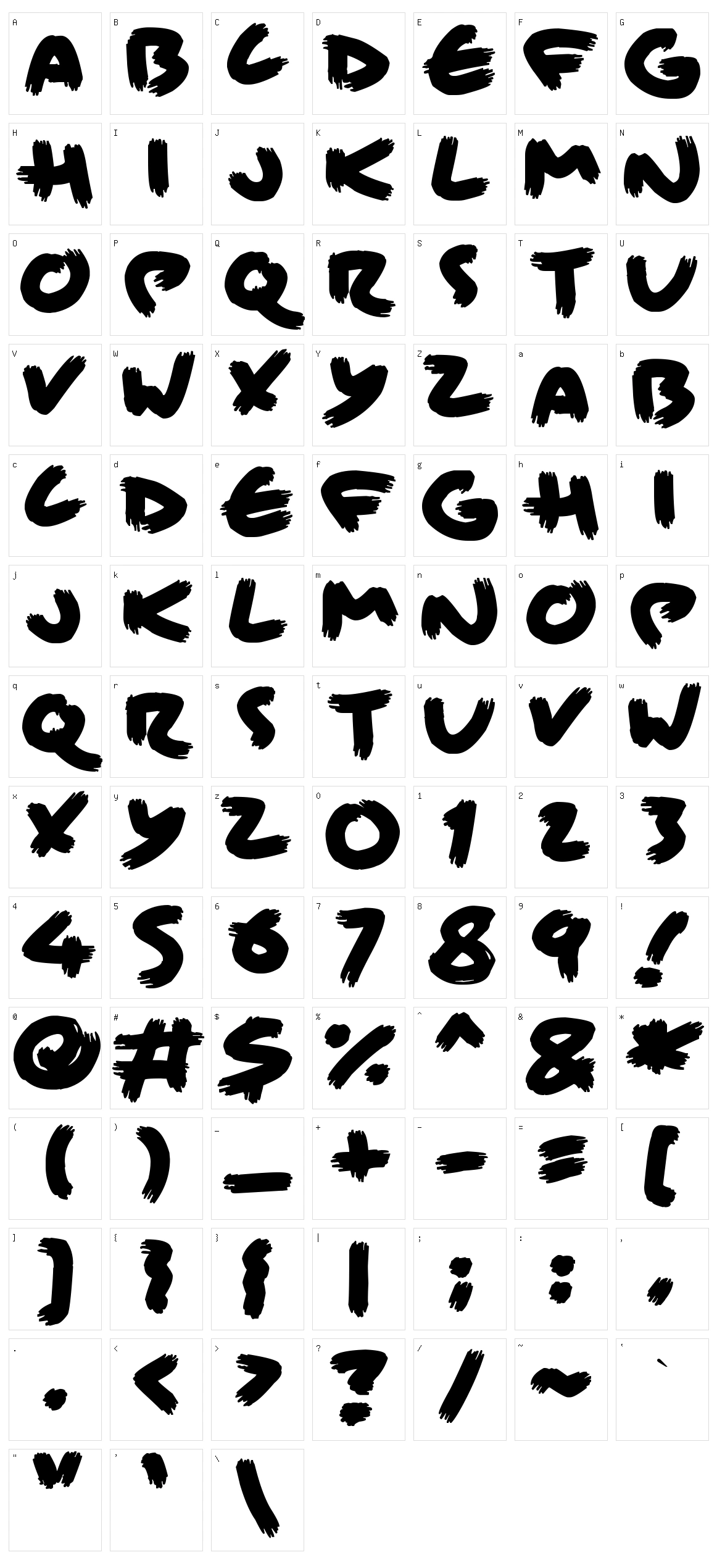
The free font Brisk Bristle Brush is carefully designed by Hawtpixel, showcasing a thoughtful balance of creativity and usability and falls under the Script font style. When you download the ZIP file, it contains only 86.01 KB of font files, making it lightweight and quick to download. Please review the license details below to understand permitted usage and distribution rights. If license information is not available, we recommend using this font for personal projects only or contacting the author directly for commercial usage permissions.